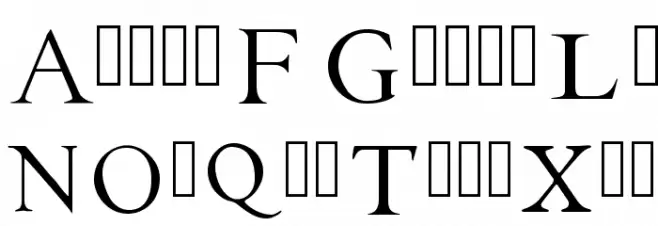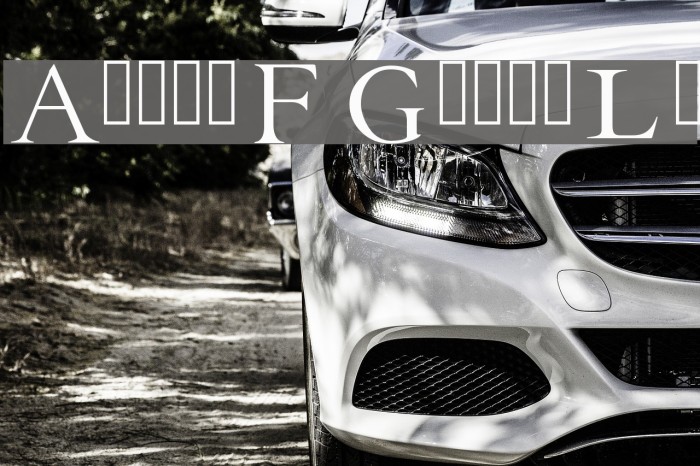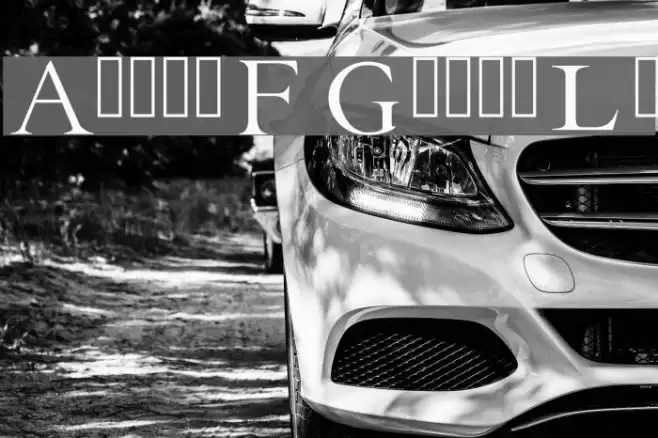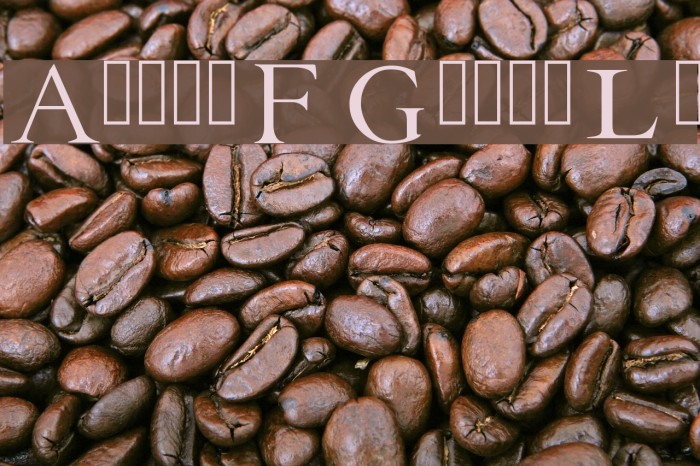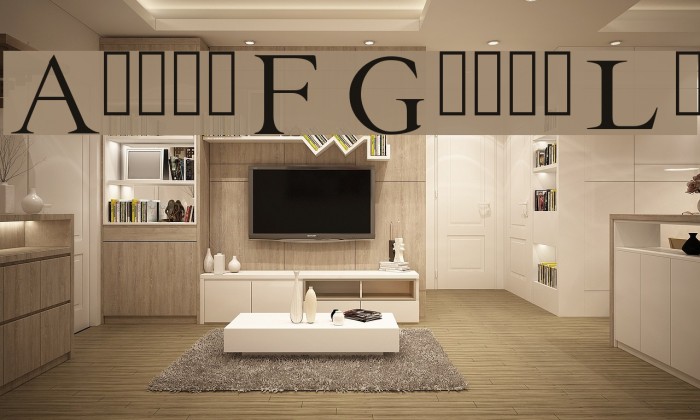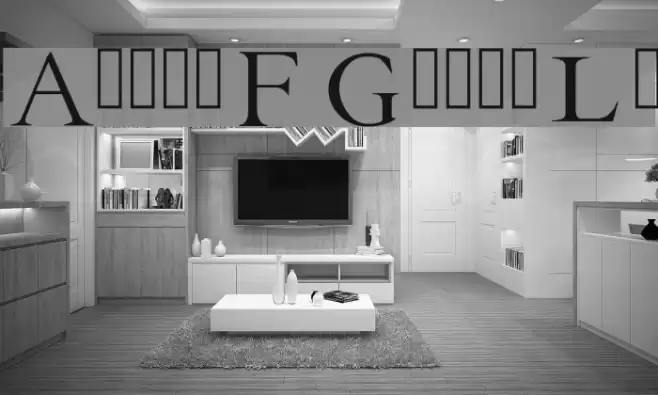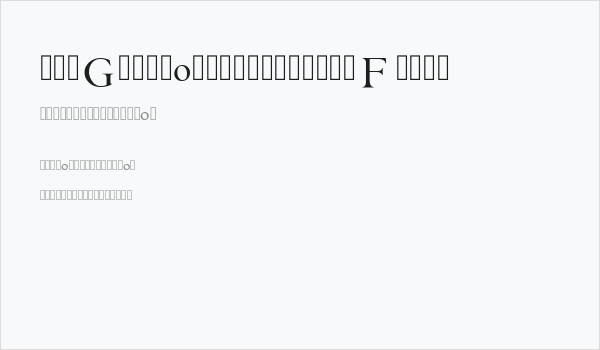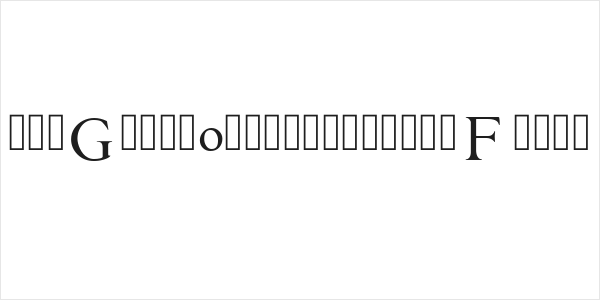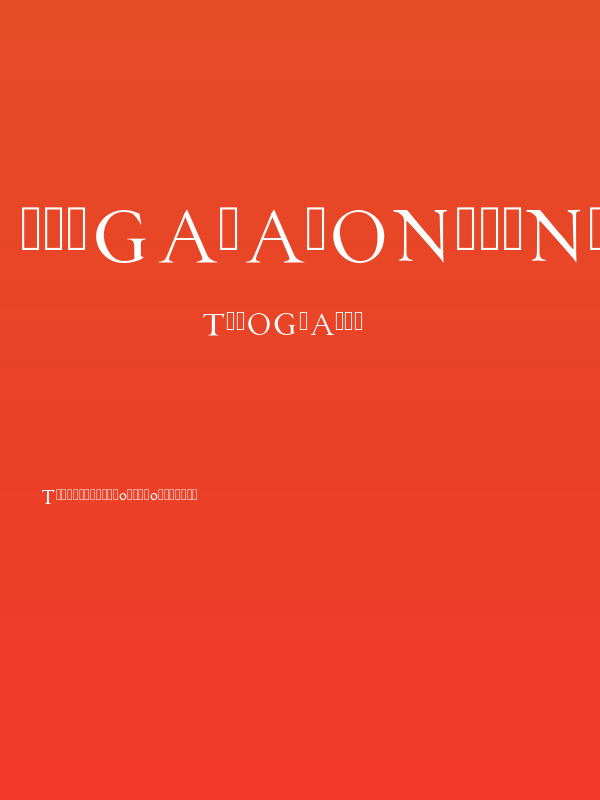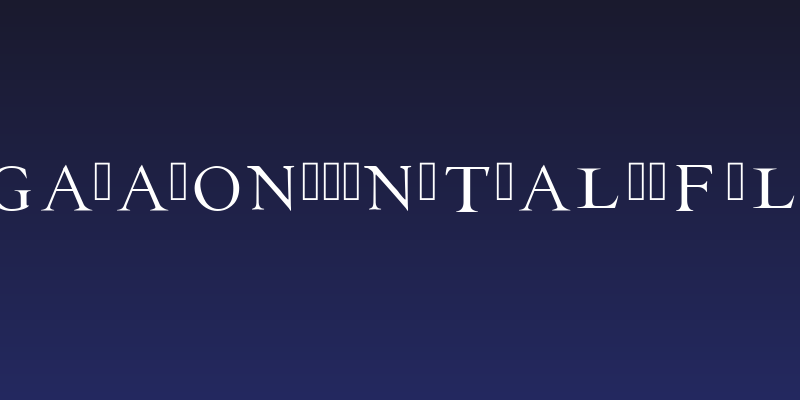
EB Garamond Initials Fill2 Font
EB Garamond Initials Fill2 Description
This font features a classic serif design with elegant and refined letterforms. The characters exhibit a high contrast between thick and thin strokes, giving them a sophisticated and traditional appearance. The serifs are pronounced and add a touch of formality and grace. The overall style is reminiscent of classic book typography, making it suitable for projects that require a timeless and authoritative look. The uppercase letters are particularly striking, with a balanced and harmonious structure that enhances readability.
| Use Case | Headlines, Body text |
| Proposed Projects | Ideal for book covers, formal invitations, editorial design, and branding projects that require a classic and sophisticated touch. |